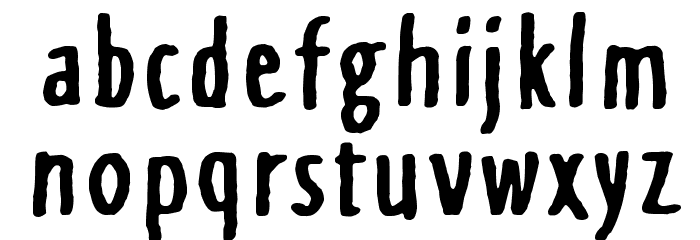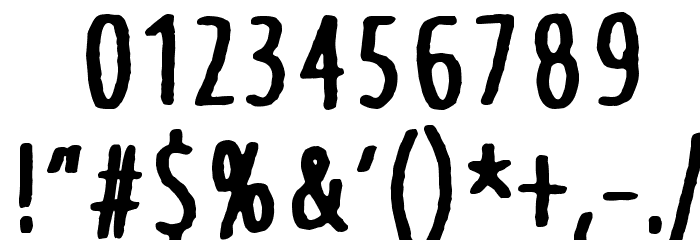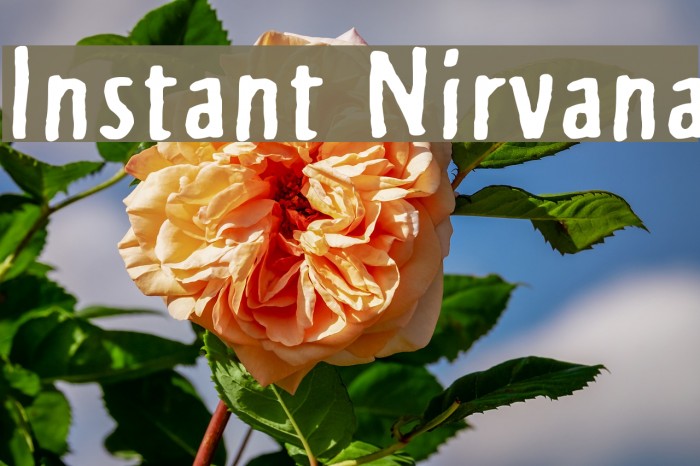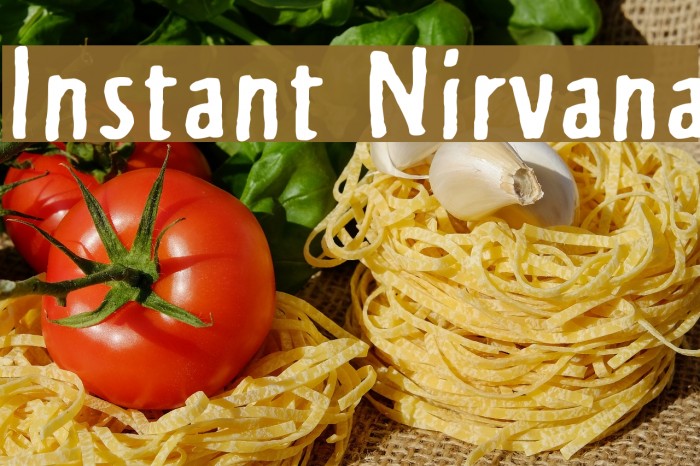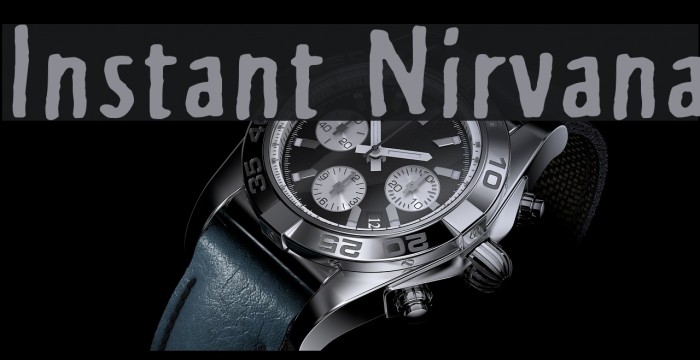
Instant Nirvana Font
This font features a hand-drawn, rustic style with a playful and informal appearance. The letters are slightly irregular, giving it a charming, organic feel. The strokes are bold and consistent, with rounded edges that soften the overall look. This font captures a sense of whimsy and creativity, making it ideal for projects that require a personal touch. The uppercase and lowercase letters maintain a consistent style, while the numerals and special characters complement the alphabet with similar characteristics. The font's unique personality makes it stand out, perfect for designs that aim to convey warmth and approachability.
A hand-drawn, playful font with bold, rounded strokes and an informal style.
- Font: Instant Nirvana
- Proposed Projects: Ideal for greeting cards, children's books, playful branding, and DIY craft projects.
- Category: Handwritten